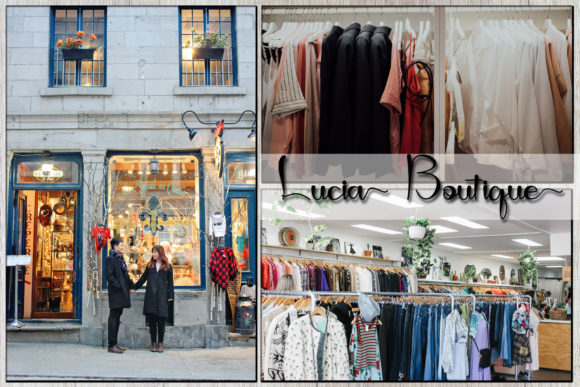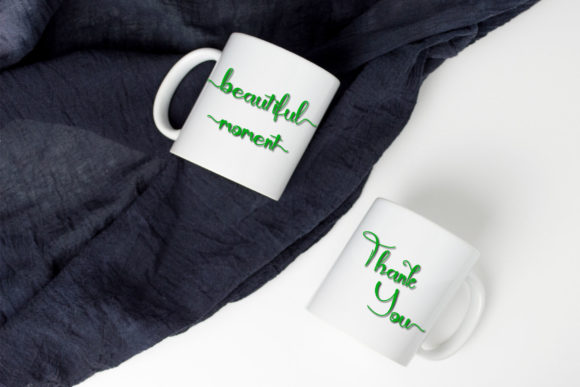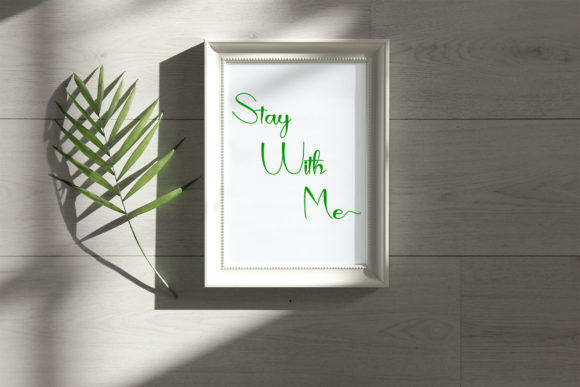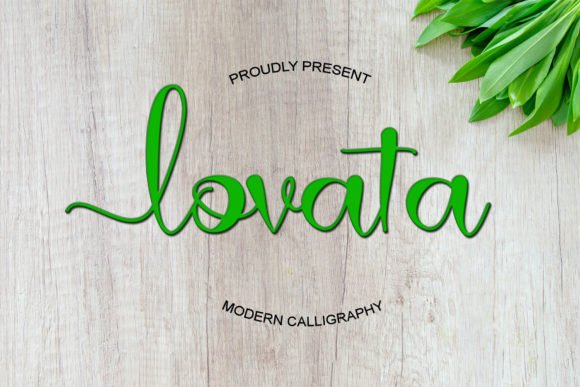
Introduction to Lovata Font
Lovata is a modern, elegant, sophisticated and classy calligraphy font that will add a luxury spark to any design project.
It is PUA encoded which means you can access all of the glyphs and swashes with ease .
Lovata Font offers exceptional quality and versatility, making it a valuable addition to your design toolkit. Whether you’re creating for personal projects or commercial use, Lovata Font delivers professional results.